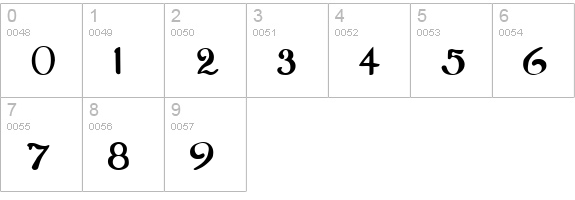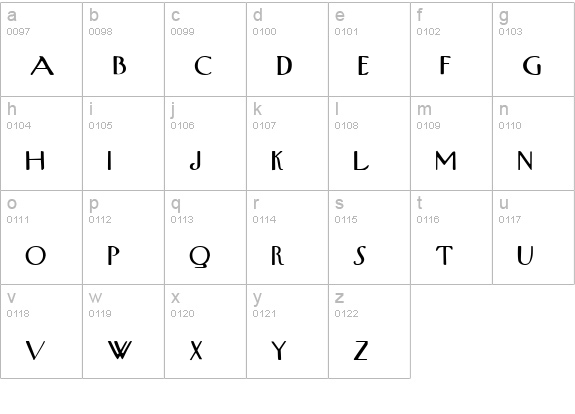
UppWe Regular Font Details
UppWe Regular is the standard, neutral variant in the UppWe typeface family \xE2\x80\x94 well suited to general body text, paragraphs, and standard typographic work.
Introducing UppWe Regular font - a versatile typeface that combines modern simplicity with a touch of elegance. This font is perfect for a wide range of applications, from branding and logo design to website headers and social media graphics. UppWe Regular offers a clean and legible design, making it easy to read even at small sizes. Its sleek and refined aesthetic adds a professional and sophisticated touch to any project. Whether you're designing a business card, creating a presentation, or crafting a magazine layout, UppWe Regular is the ideal choice to make your content stand out. One of the best features of UppWe Regular is that it is free to download! That's right, you can get this amazing font without any cost at FontsMarket.com. With just a few clicks, you can access this high-quality typeface and enhance your designs with its modern charm. With UppWe Regular, you have the freedom to experiment and explore various design possibilities. Its versatility allows you to use it in both print and digital media, ensuring your message is conveyed with clarity and style. So why wait? Don't miss this opportunity to add UppWe Regular to your font collection. Download it for free at FontsMarket.com and unlock a world of design possibilities. Let your creativity soar and create stunning visuals that leave a lasting impression.